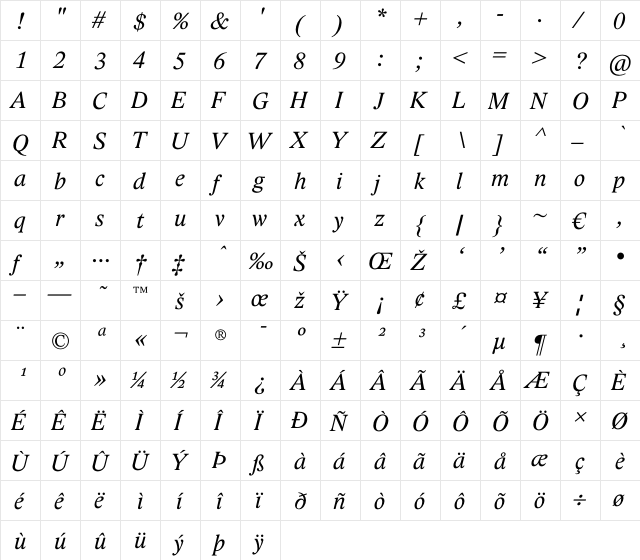
Lido STF CE Regular Italic
Design Context for Lido STF CE Typeface
Lido STF CE takes a measured approach to typography — its balanced proportions and neutral character make it a reliable workhorse for both digital and print work. The slanted form adds forward momentum and visual energy.
Pro Tip: Use Lido STF CE for emphasis, pull quotes, and subheadings where its slanted energy can add rhythm to the layout.